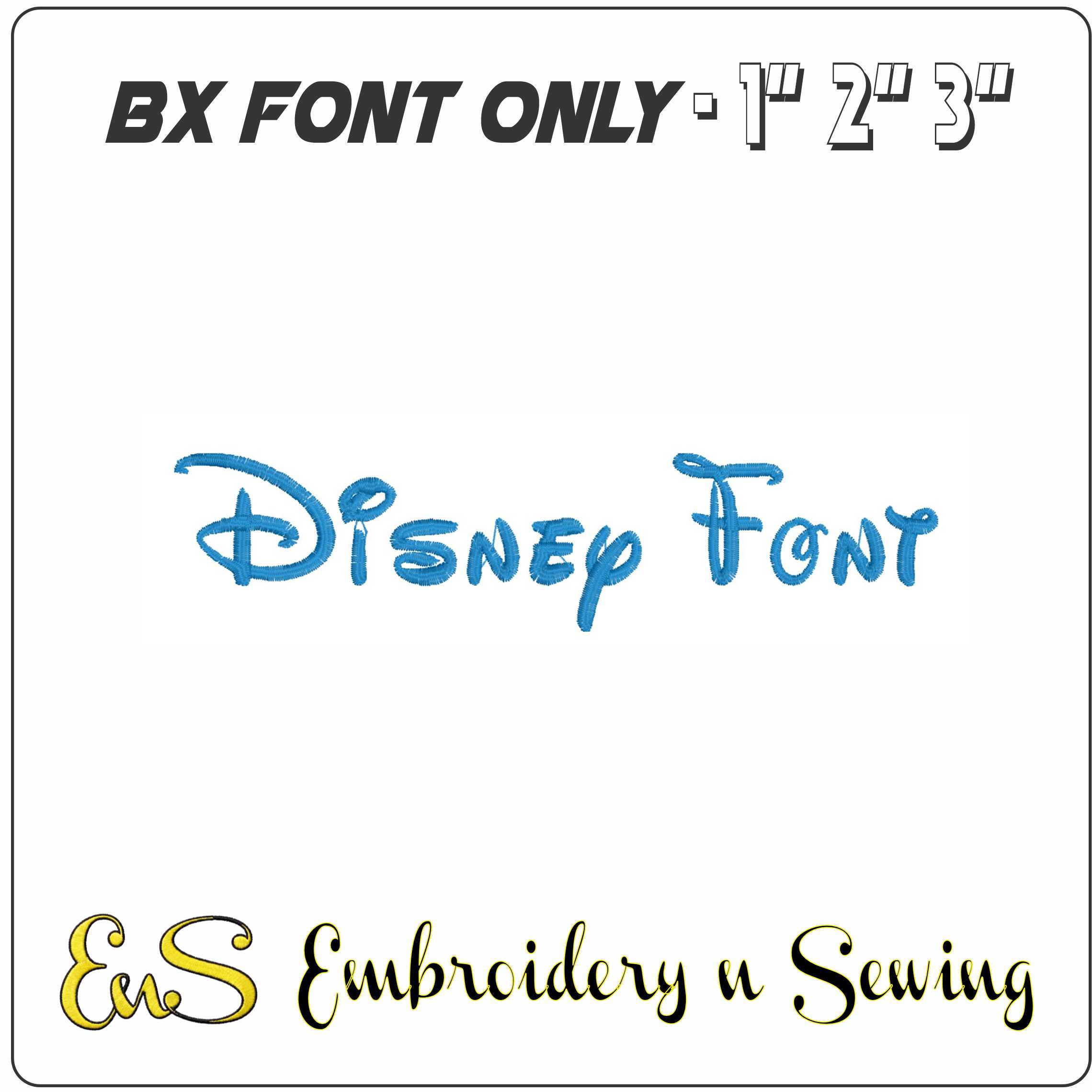
Disney Font
Blue decorative Disney Font lettering brings a playful, storybook feel to names and short words on children’s clothing and accessories.
Add storybook swish to names and short words with this blue decorative script in the style of “Disney Font” lettering. The flowing cursive gives each word a familiar theme-park feel without needing extra decoration around it. It suits makers stitching for children, fans of playful lettering, or anyone personalising gifts with a more whimsical look.
Because the lettering is offered on a compact scale, it works well on T-shirt chests, sweatshirt fronts, pockets and small accessory panels. The clean blue script stands out nicely on pale cotton, denim and fleece, where the curves can stay the focus. Use it where you want the wording itself to do the styling, from kids’ pyjamas and nursery bags to themed tops and keepsake pieces.